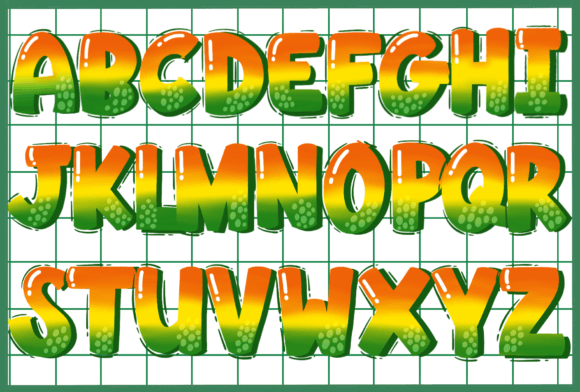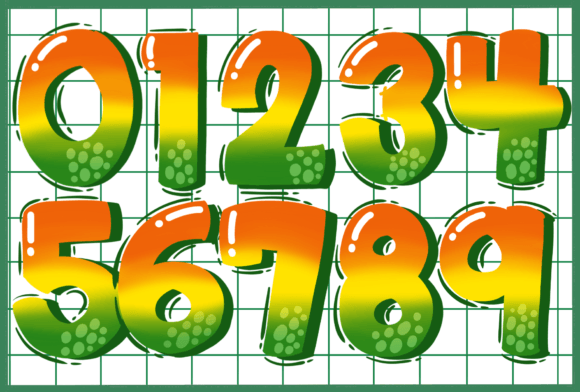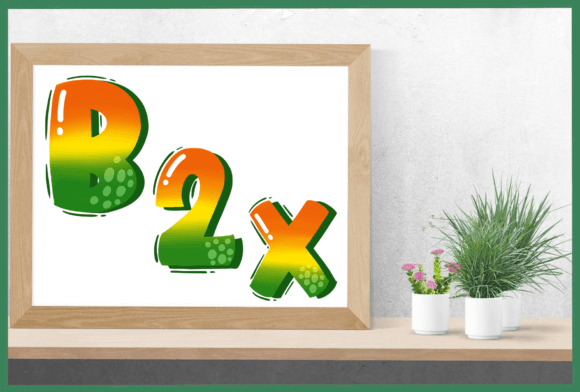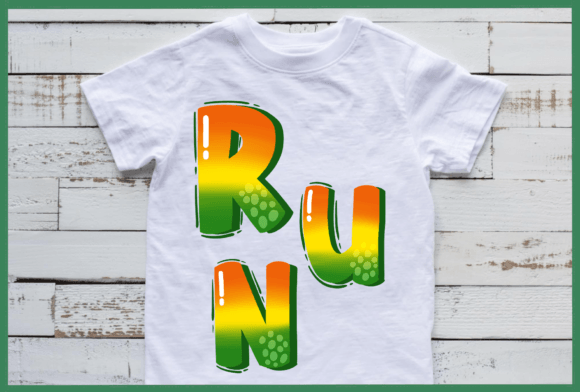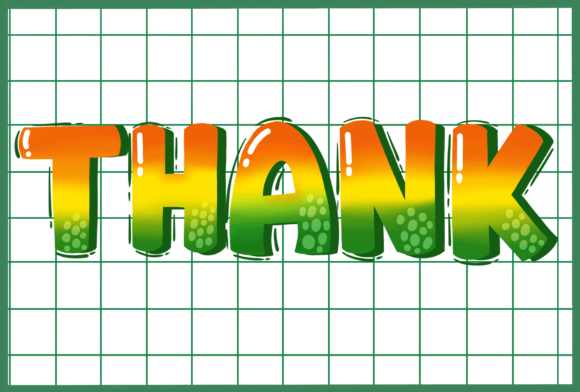
Introduction to Light Graffiti Font
Introducing Light Graffiti Font – a delightful handwriting style that’s both cute and simple, perfect for educational materials.
It’s great for decorating presentations and can be used in teaching, advertising, illustrations, and more Everyone is welcome to explore its versatility.
Key Features of Light Graffiti Font
Why Choose Light Graffiti Font?
Light Graffiti Font offers exceptional quality and versatility, making it a valuable addition to your design toolkit. Whether you’re creating for personal projects or commercial use, Light Graffiti Font delivers professional results.